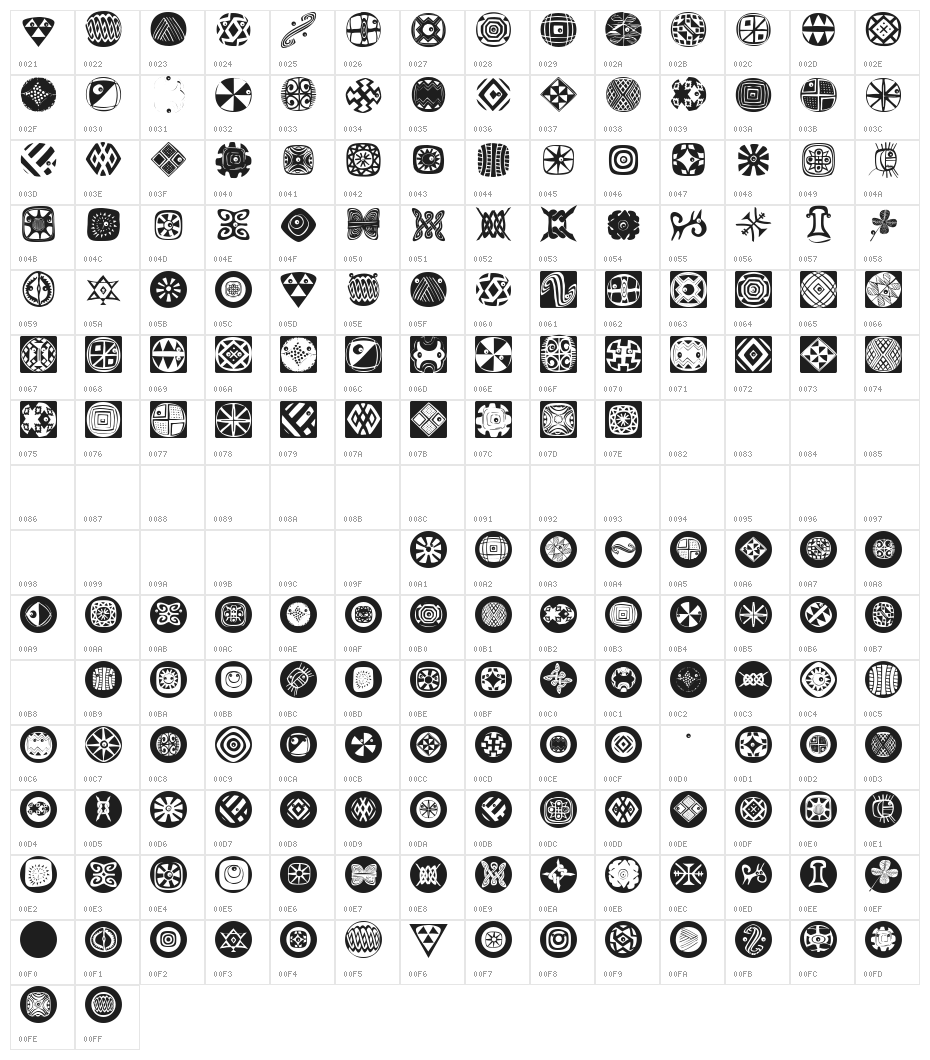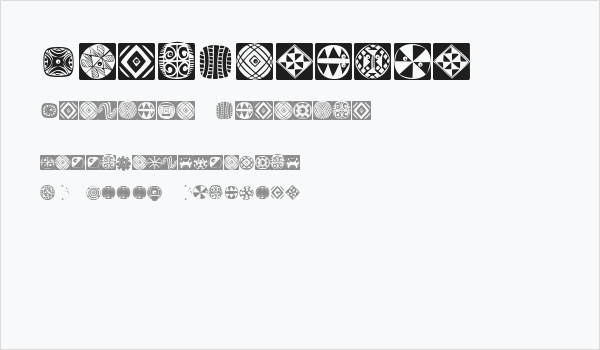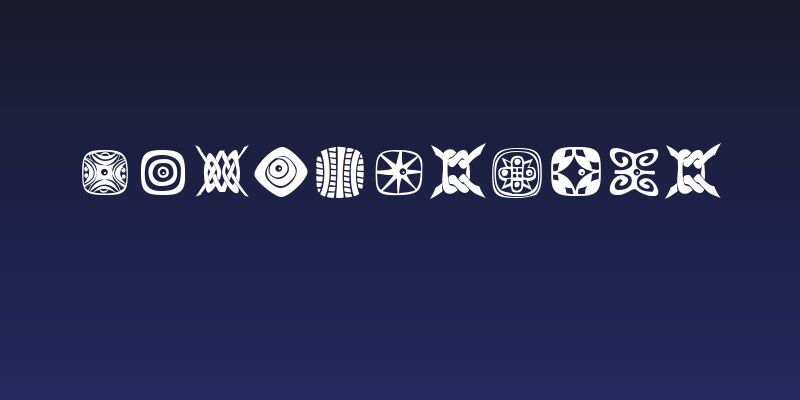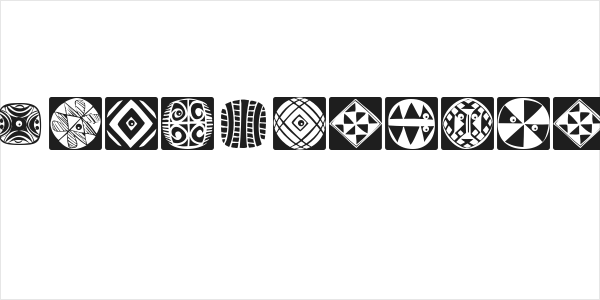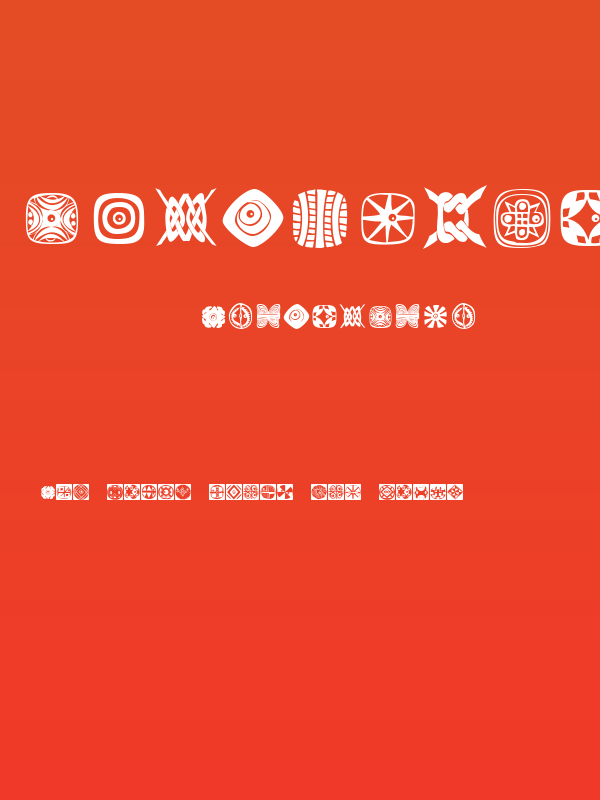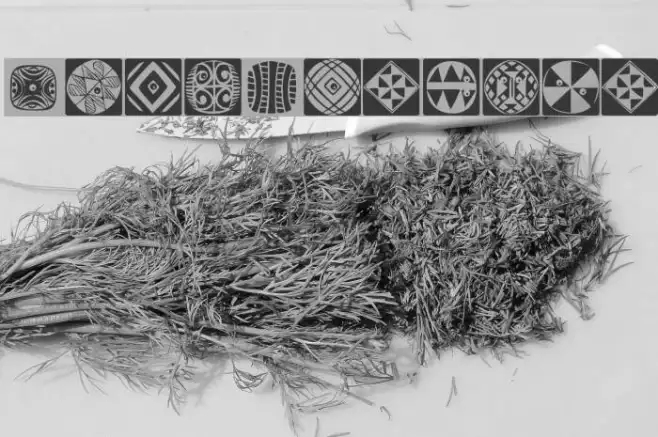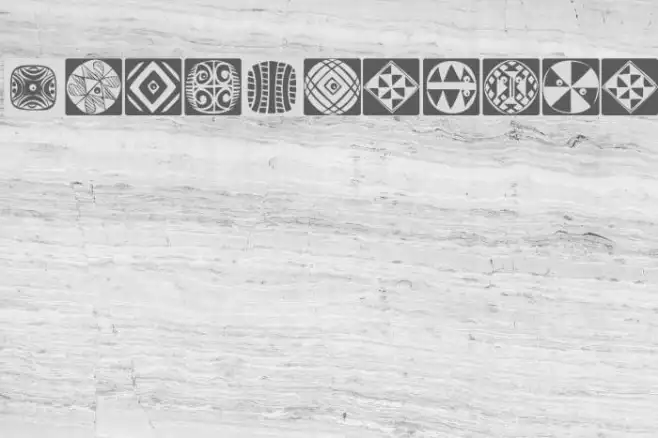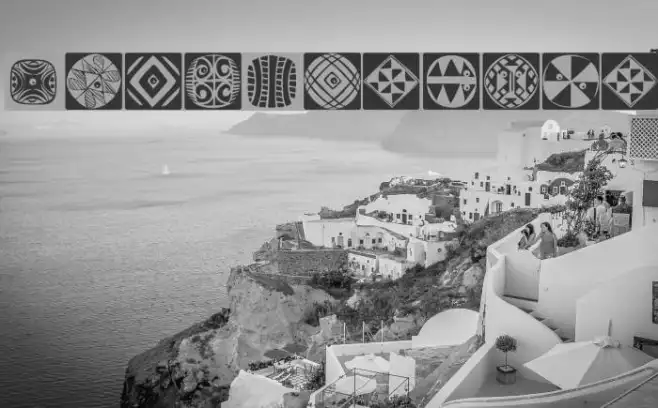
AfroDesigns Font
AfroDesigns Description
This collection features a series of intricate, decorative symbols inspired by Afrocentric designs. Each character is enclosed within a square or circular boundary, showcasing a variety of geometric patterns and motifs. The designs are bold and striking, with a strong emphasis on symmetry and contrast. The symbols are highly detailed, with each one presenting a unique combination of lines, shapes, and textures. The overall aesthetic is both modern and traditional, capturing the essence of African art and culture. These symbols are not typical alphanumeric characters but rather a set of artistic icons that can be used for decorative purposes.
| Use Case | Logos, Art projects, Cultural designs |
| Proposed Projects | Ideal for cultural projects, art installations, branding, and decorative design elements. |